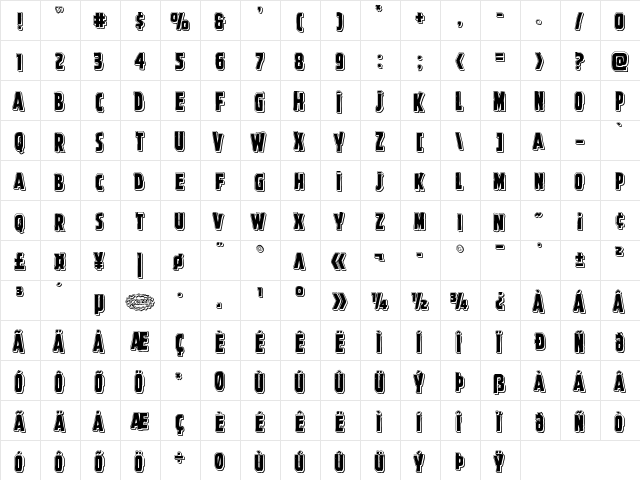
Ghoulish Intent Punch Regular
Design Context for Ghoulish Intent Punch Typeface
Ghoulish Intent Punch is a composed and adaptable typeface that performs quietly and consistently across a wide range of design contexts.